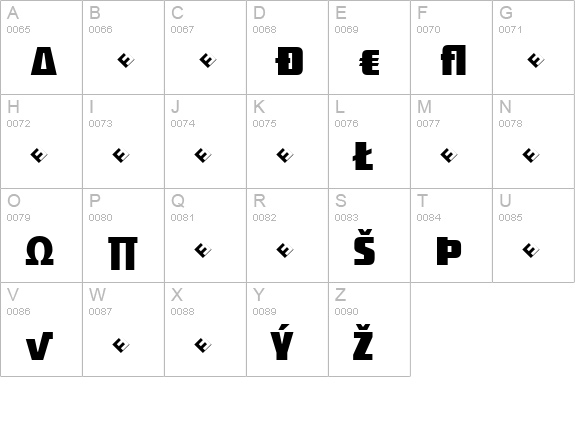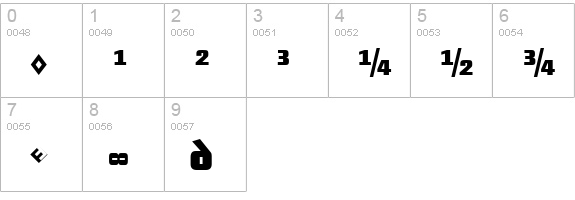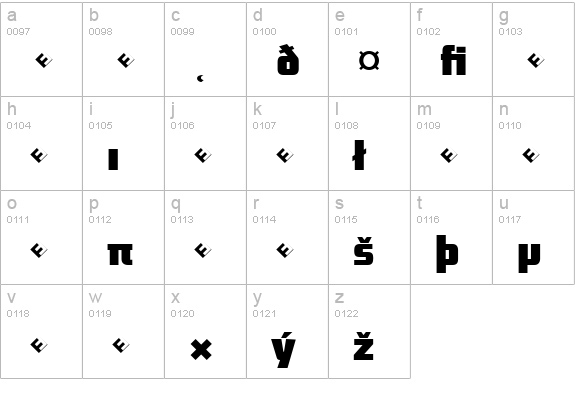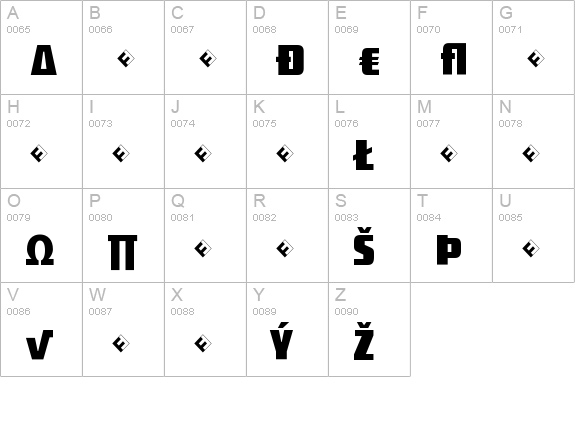
District-BoldAltExpert Font Details
District-BoldAltExpert is a modern and stylish font that exudes confidence and sophistication. Its bold and expertly crafted design makes it perfect for creating eye-catching headlines, logos, and branding materials. The font features strong, sharp lines and a distinct geometric structure that commands attention. What sets District-BoldAltExpert apart is not only its striking appearance but also the fact that it is available for free download at FontsMarket.com. This means that designers, content creators, and anyone looking to add a touch of elegance to their projects can access this premium font without any cost. Whether you're working on a professional design project or simply want to elevate your personal creations, District-BoldAltExpert is the ideal choice. Download it for free today and unleash the power of this exceptional font in your work.